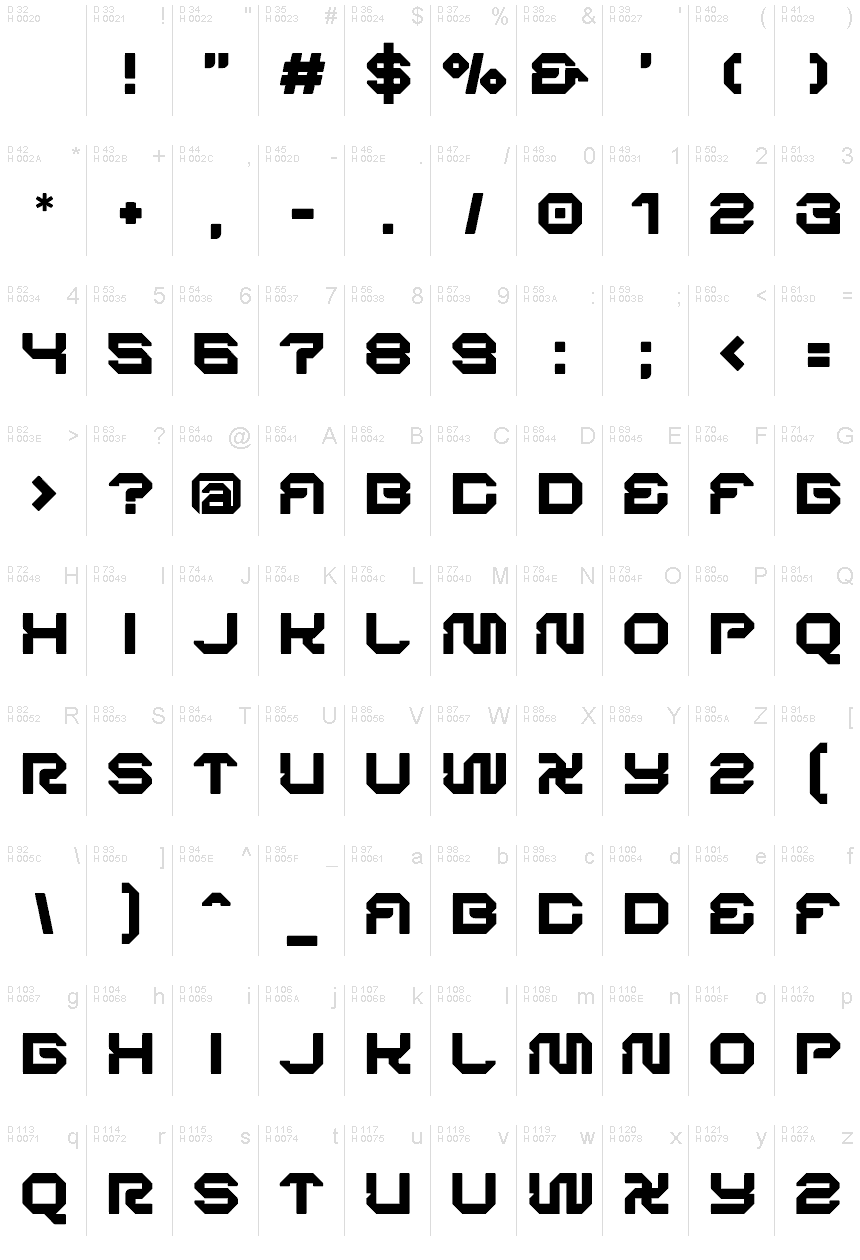
BERGAN
Bergan font by Enxyclo Studio is a modern, expanded display typeface that features geometric shapes and futuristic designs. It carries strong character in each letter which appears bold and tech-oriented. The sharpness of this font makes it perfect for today’s digital trends; where sleek and clean layouts are top priorities for many designers looking to attract their audience through a contemporary aesthetic.